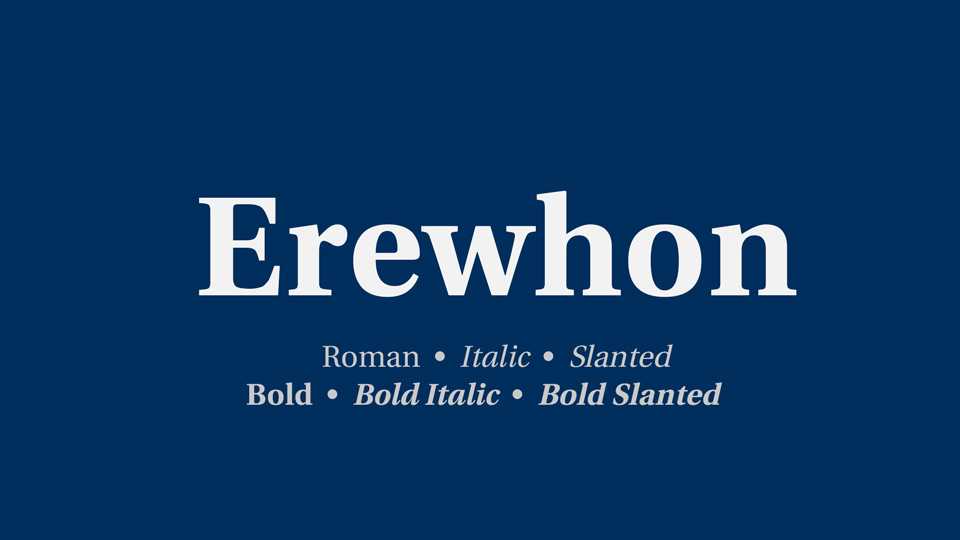
Download Erewhon typeface, a serif font family based largely on Andrey Panov’s Heuristica, but with so many changes. Erewhon reflects 18th- and early-19th-century ideals of classical design.
Designer: Michael Sharpe